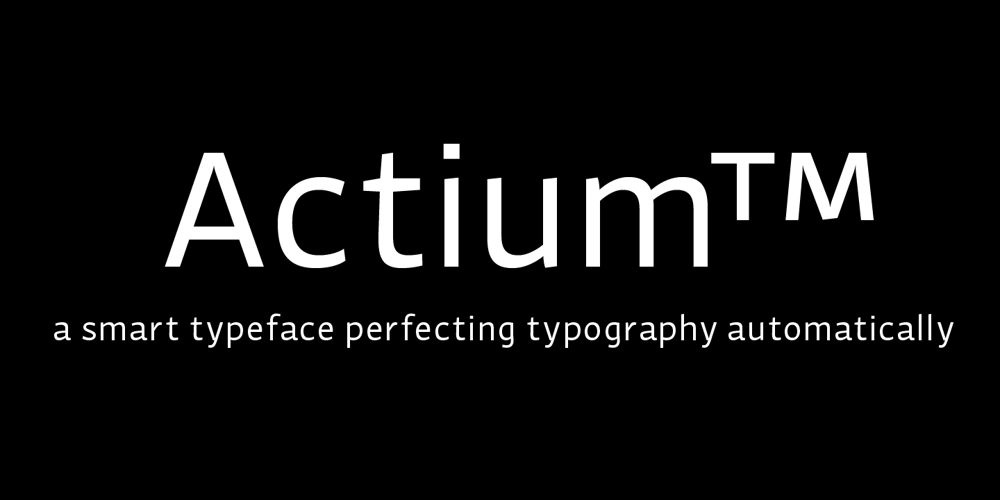
Actium Font Family was designed by Gerben Dollen and published by Type Mafia. Actium contains 14 styles and family package options. Actium is a contemporary multilingual sans serif typeface developed to help perfect typography automatically. Type Mafia has focussed on words with odd combinations of capital letters and numbers, such as product names and postal codes such as WD40 and H1N5, jump out of the text. They sit awkwardly together as the numerals have been designed to work with the lowercase, not the uppercase letters – affecting readability.To fix this Type Mafia invented Smart Capo™. Smart Capo™ Smart Capo is a feature that automatically activates once you type an uppercase letter together with a number. When a capital letter is sat next to a numeral, Smart Capo converts the letter to a mid-cap — a contemporary alternative to small caps — and the default old-style numeral to a lining numeral. Actium’s mid-caps and lining numerals have been designed with the same height (between cap and x-height) so they sit comfortably next to each other and fit more harmoniously into text. Smart Capo applies equal attention to capitalised words without any numbers, such as NAVO and USA, and are also automatically set into mid-capitals. Working on its own, Smart Capo saves time and money for the typographer — taking the pain out of text formatting — and makes it a more pleasurable experience for the reader. This feature is made possible by the use of ‘contextual alternates’, an OpenType feature used in modern font software, working with a set of characters specially designed at mid-cap height. By default these changes automatically take place so it doesn’t need to be switched on, it will just work. Actium Actium’s design has an unusual diagonal contrast — much more common in a serifed face than in a sans serif — giving it more bite. The typeface looks elegant when set in large sizes and remains very legible when shown in small sizes. The family consists of six weights in two styles, making a dozen fonts. Weights range from light to black in roman and true italic. All fonts are fully loaded with functional elements. Actium boasts an extended Latin character set and with Greek. This means a wide range of Western languages are supported: perfect for use in bilingual publications and packaging. For numerals, each font includes old-style and lining figures in both proportional and tabular widths, with superiors and inferiors. These allow you to select the right set of numbers for the right task.